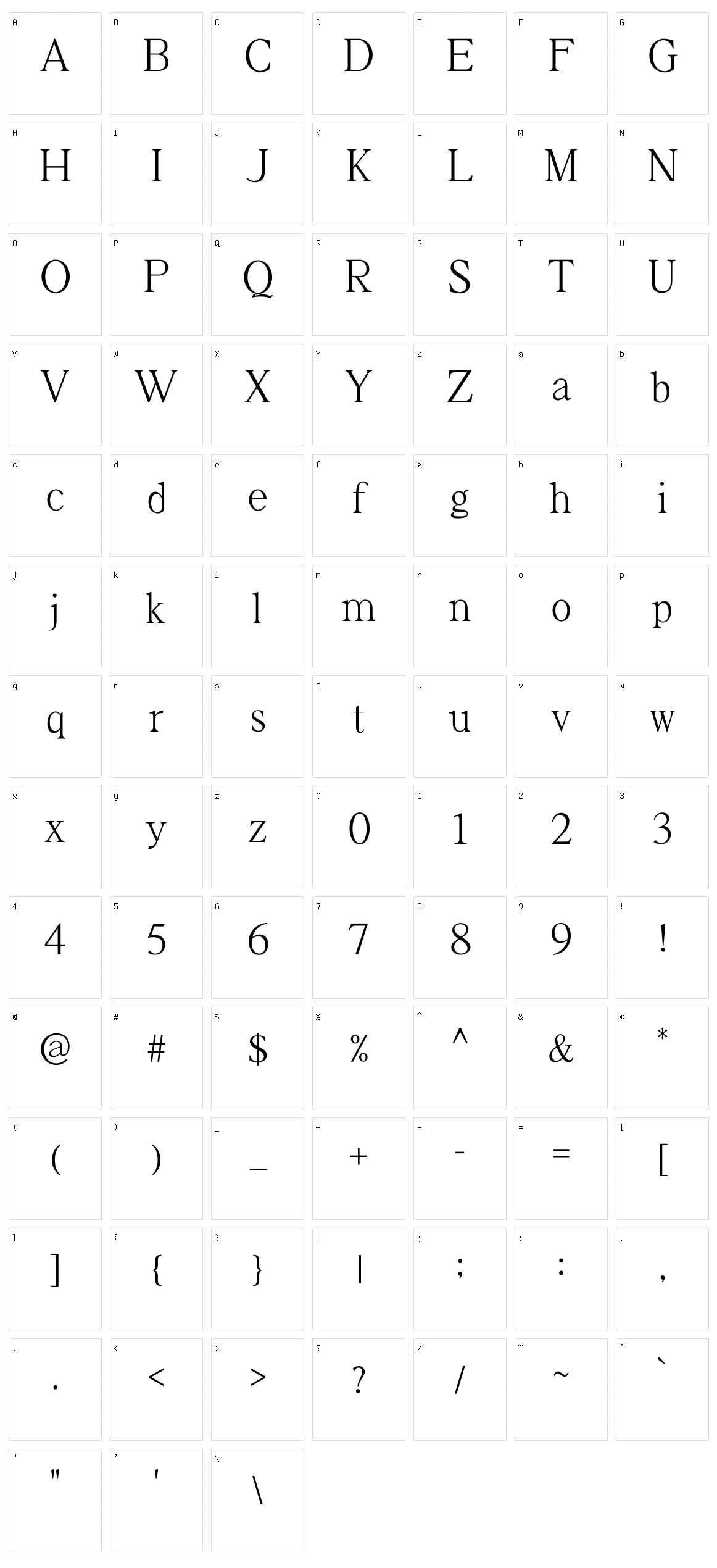
The free font Vacation is carefully designed by Font Kingdom, showcasing a thoughtful balance of creativity and usability and falls under the Serif font style. When you download the ZIP file, it contains only 37.19 KB of font files, making it lightweight and quick to download. Please review the license details below to understand permitted usage and distribution rights. If license information is not available, we recommend using this font for personal projects only or contacting the author directly for commercial usage permissions.